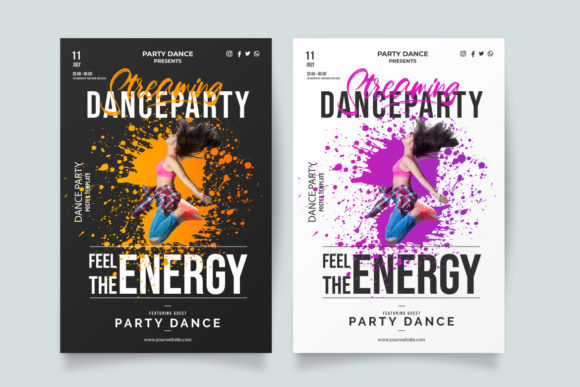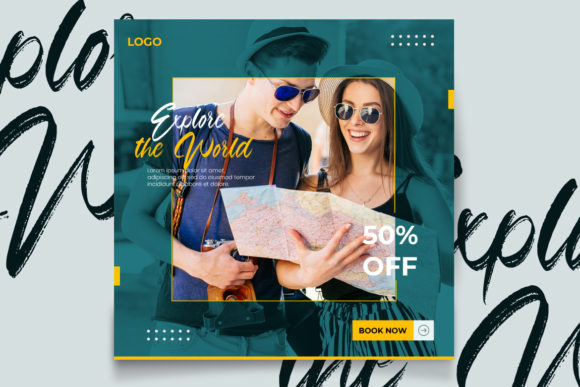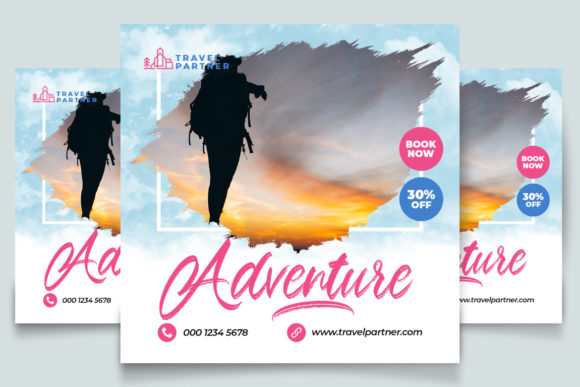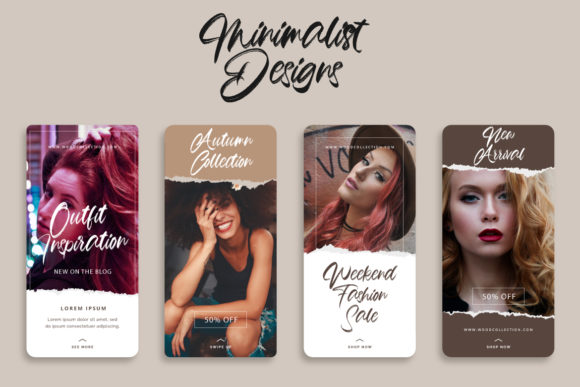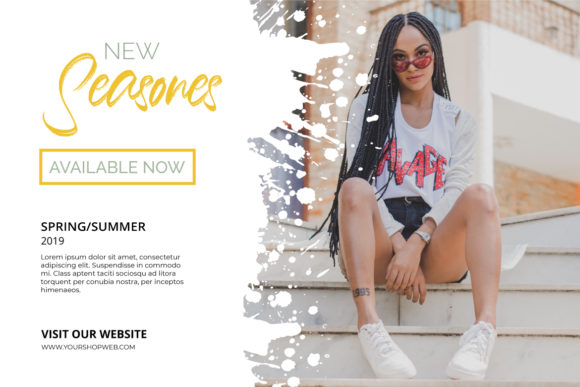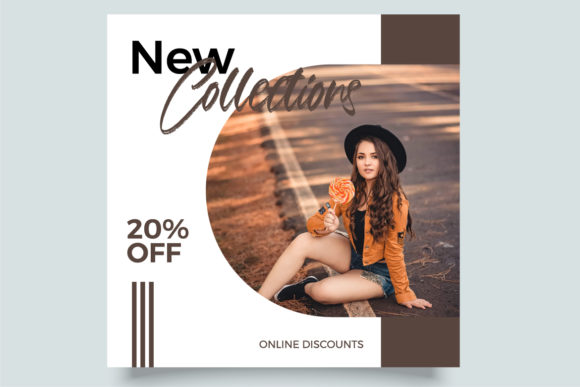
Banbos Font – Free Download
Introduction to Banbos Font
Banbos is a cool brush handwritten font,created by using a brush pen.
| 👤 Author | Fallengraphic |
Clean and a little bit quirky, this font is the perfect fit for all of your logos, branding, social media, and crafty DIY projects .
Key Features of Banbos Font
Why Choose Banbos Font?
Banbos Font offers exceptional quality and versatility, making it a valuable addition to your design toolkit. Whether you’re creating for personal projects or commercial use, Banbos Font delivers professional results.